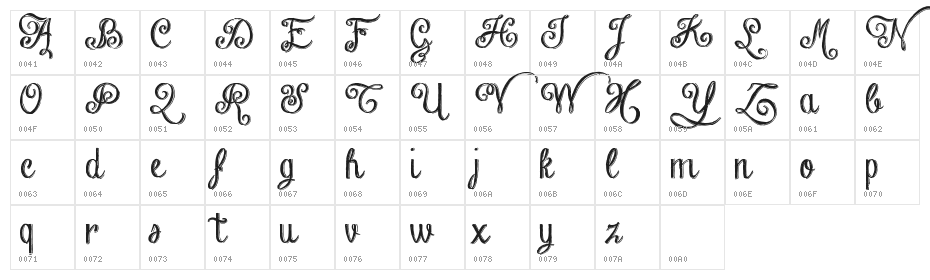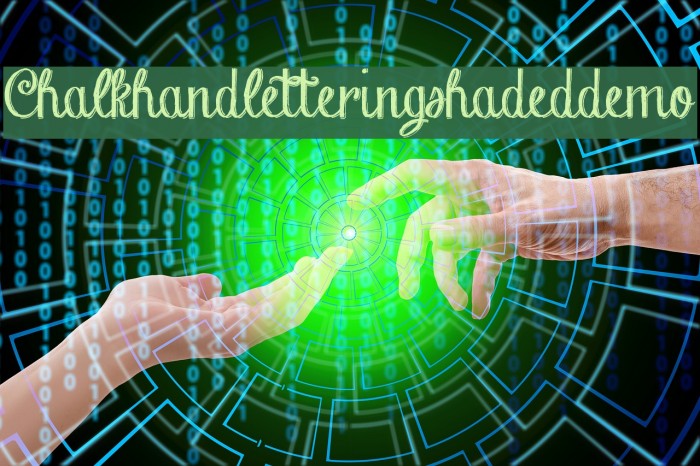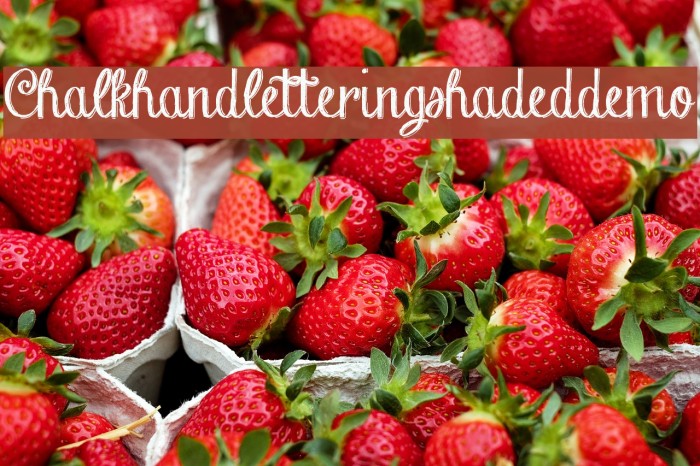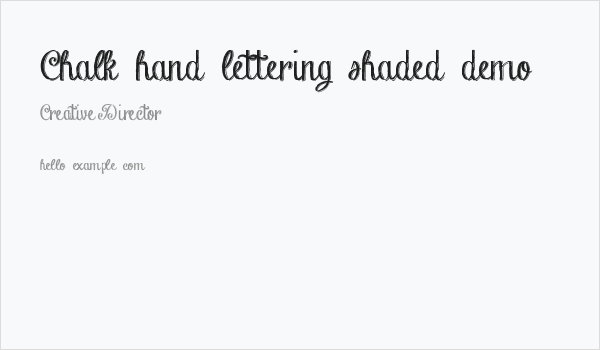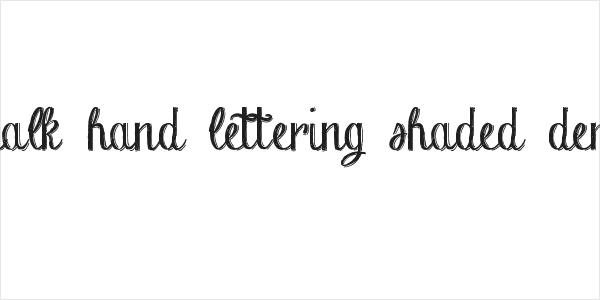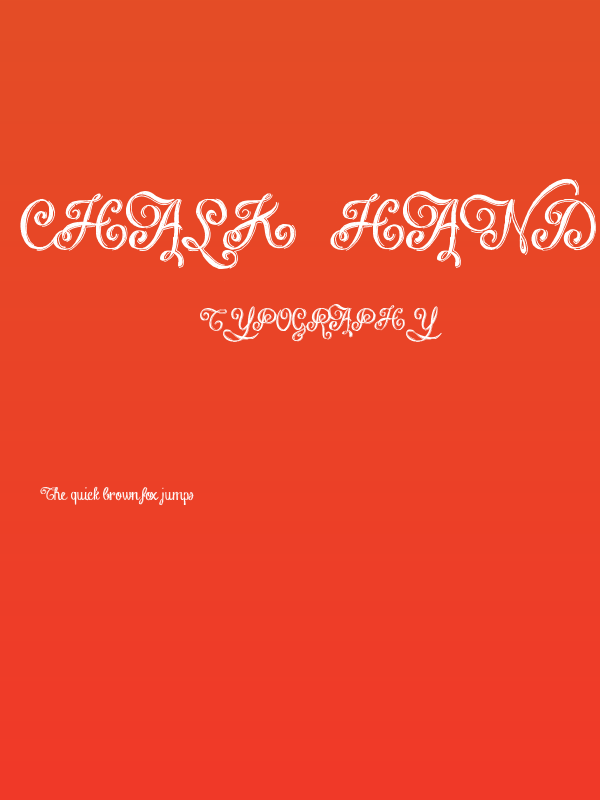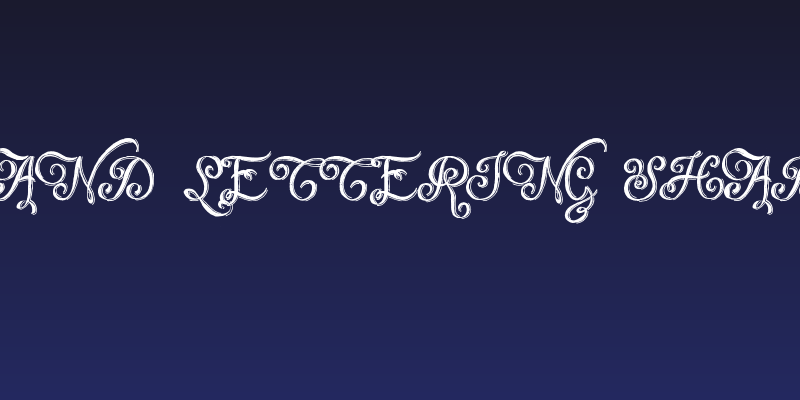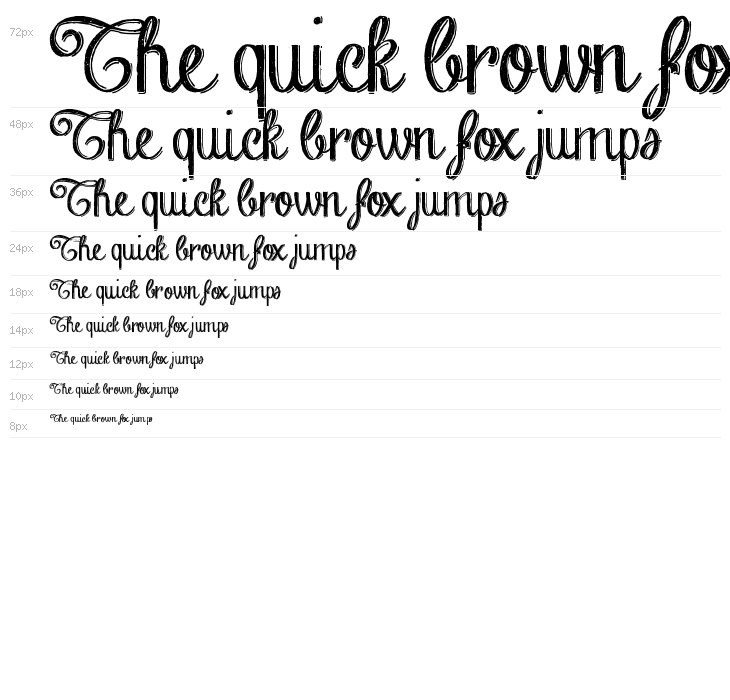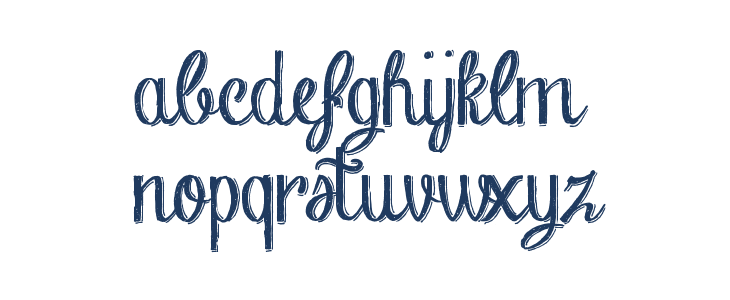
Chalk-hand-lettering-shaded_demo Font
Chalk-hand-lettering-shaded_demo Description
This font exudes a playful and artistic charm, reminiscent of hand-drawn chalkboard lettering. The uppercase letters are adorned with intricate swirls and loops, giving them a whimsical and decorative appearance. The lowercase letters maintain a consistent style with a slightly more subdued flair, yet they still carry the same hand-crafted essence. The shading effect adds depth and a three-dimensional quality, enhancing the overall visual appeal. The font's unique style makes it ideal for projects that require a touch of creativity and elegance, such as invitations, greeting cards, or artistic posters.
| Use Case | Headlines, Artistic projects, Invitations |
| Proposed Projects | Ideal for creative projects like invitations, greeting cards, artistic posters, and cafΓΒ© menus. |